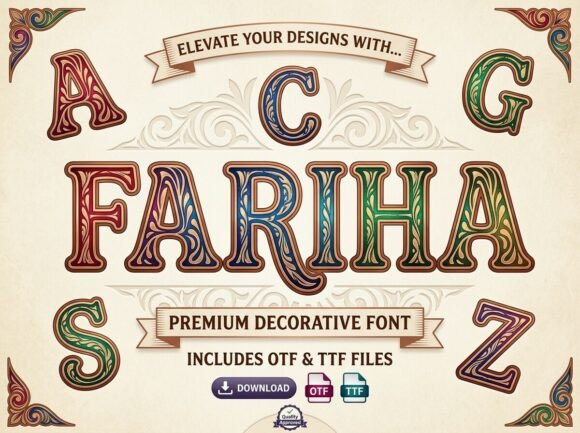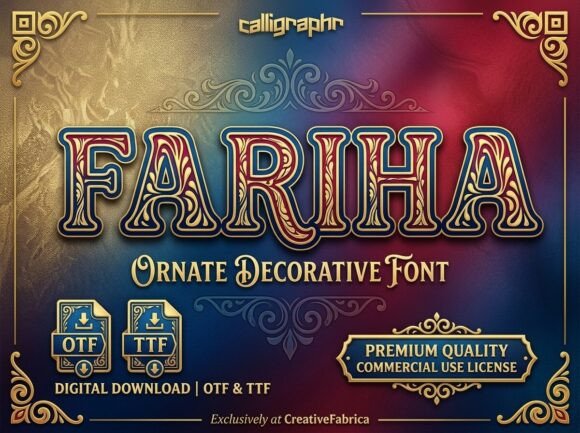
Introducing Fariha Font: The Ultimate Decorative Display Font for Creative Minds
In the world of design, typography plays a crucial role in capturing the attention of your audience and conveying your message effectively. If you’re a designer, craftsperson, or entrepreneur looking to elevate your visual content, you’re in luck! Fariha Font is a stunning decorative display font that’s designed to be the center of attention. With its unique artistic elements and strong visual personality, this font is perfect for creators who want to break away from the ordinary and make a lasting impression.
What Makes Fariha Font Stand Out?
Fariha Font boasts intricate details and creative letterforms that are sure to make your designs pop. Its distinctive style is ideal for high-impact designs where the typography needs to do the talking. Whether you’re designing a modern poster, a unique brand identity, or eye-catching social media content, Fariha Font adds an instant “wow” factor to any project. This font is versatile enough for bold headlines, artistic logos, and creative packaging, while maintaining a professional and polished finish.
Perfect Use Cases for Fariha Font
Fariha Font is a versatile design asset that can be used in a variety of creative projects. Here are some perfect use cases for this stunning font:
- Poster Design: Create headlines that people can’t look away from. Fariha Font is perfect for designing attention-grabbing posters that showcase your message in a bold and creative way.
- Branding & Logos: Build a unique identity for creative businesses. With Fariha Font, you can create a distinctive brand logo that sets you apart from the competition and leaves a lasting impression on your audience.
- Apparel & Merch: Perfect for T-shirts, hoodies, and tote bag designs. Fariha Font adds a touch of personality to your apparel and merchandise designs, making them stand out in a crowded market.
- Social Media: Make your quotes and announcements stand out in the feed. Use Fariha Font to create eye-catching social media content that grabs attention and drives engagement.
- Packaging: Give your products a premium look with Fariha Font. This font is perfect for designing labels, packaging, and other marketing materials that require a touch of elegance and sophistication.
Why Choose Fariha Font?
With so many fonts available in the market, why choose Fariha Font? Here are some compelling reasons to consider:
- Unique Design: Fariha Font features a unique and distinctive design that’s sure to make your projects stand out.
- High-Quality: This font is designed with high-quality and precision, ensuring that it looks great in any design.
- Versatile: Fariha Font is versatile enough for a wide range of design projects, from posters and logos to social media content and packaging.
- Professional Finish: This font maintains a professional and polished finish, making it perfect for businesses and individuals who want to create a lasting impression.
Tips for Using Fariha Font Effectively
To get the most out of Fariha Font, here are some tips to keep in mind:
- Use it Sparingly: Fariha Font is a bold and attention-grabbing font, so use it sparingly to avoid overwhelming your design.
- Pair it with Other Fonts: Experiment with pairing Fariha Font with other fonts to create a unique and visually appealing design.
- Keep it Simple: Don’t overcomplicate your design. Keep it simple and clean to let Fariha Font shine.
Fariha Font is a stunning decorative display font that’s perfect for creative minds who want to make a lasting impression. With its unique artistic elements, strong visual personality, and versatility, this font is ideal for a wide range of design projects. Whether you’re designing a modern poster, a unique brand identity, or eye-catching social media content, Fariha Font adds an instant “wow” factor to any project. So why wait? Get your hands on Fariha Font today and take your designs to the next level!